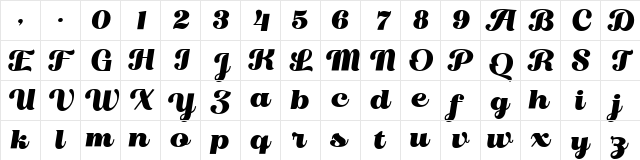
Little Birds Regular
Design Context for Little Birds Typeface
Little Birds is a composed and adaptable typeface that performs quietly and consistently across a wide range of design contexts.
Pro Tip: Pair Little Birds with a font of contrasting weight or personality to build a more expressive typographic hierarchy.